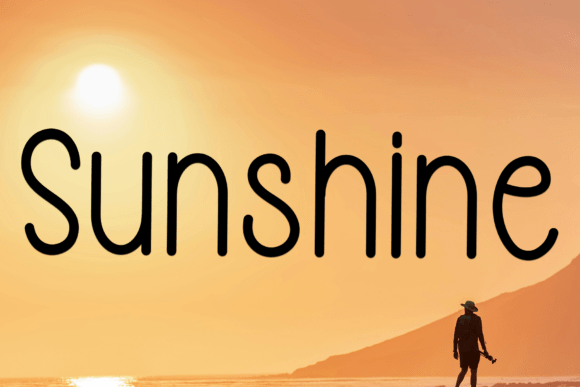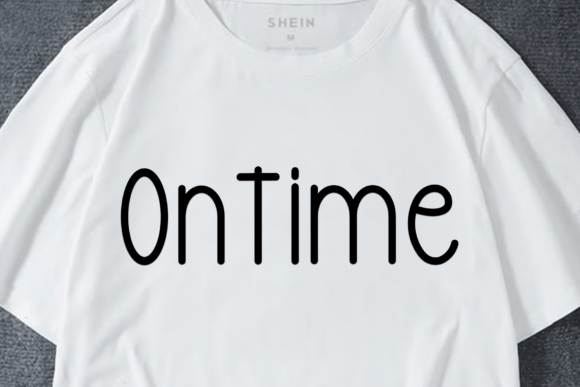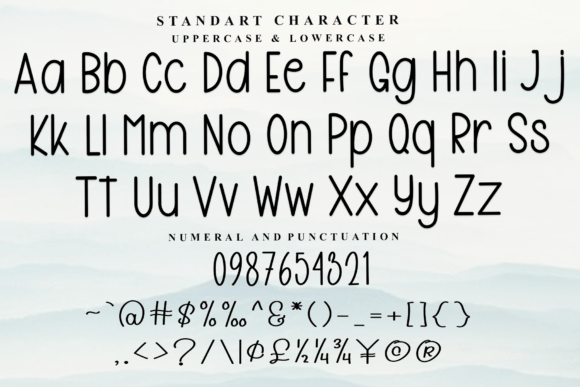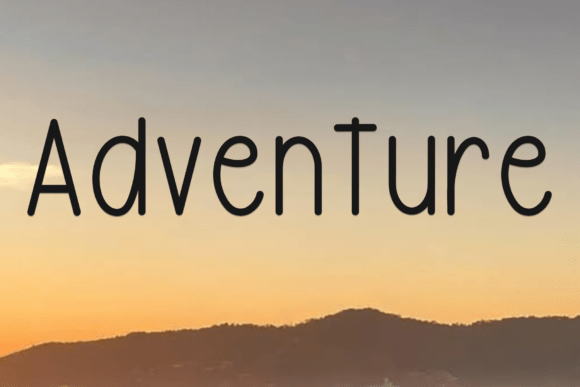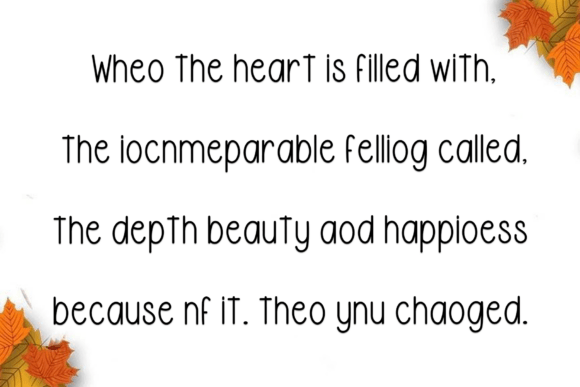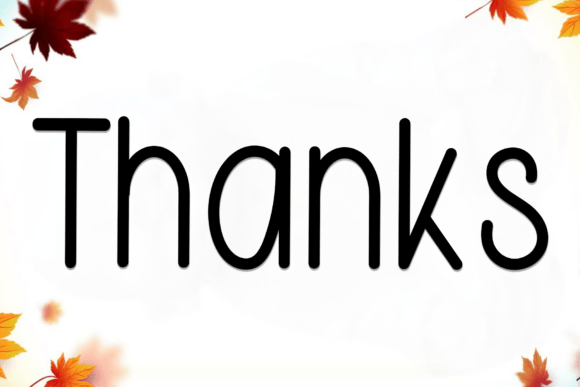
Introducing Be Mine Font: The Ultimate Holiday Typeface
The holiday season is upon us, and what better way to get into the spirit than with a festive and merry typeface? Look no further than Be Mine Font, a decorative and whimsical font that’s perfect for adding a touch of enchantment to your designs. Whether you’re a designer, crafter, or simply someone who loves the magic of the holiday season, this font is sure to bring a cheerful and nostalgic ambiance to your words.
Be Mine Font is a carefully crafted typeface that’s designed to capture the essence of the holiday season. With its decorative elements and whimsical flair, it’s the perfect addition to any holiday-themed project. From greeting cards and gift tags to festive banners and holiday-themed social media graphics, this font is sure to add a touch of magic to your designs.
Be Mine Font is a versatile typeface that’s perfect for designers and crafters alike. Whether you’re creating professional designs or working on personal projects, this font is sure to bring a touch of festive cheer to your work. With its easy-to-use glyphs and ligatures, you can quickly and easily add a touch of whimsy to your designs.
With Be Mine Font, the design possibilities are endless. Here are just a few ideas to get you started:
- Create festive greeting cards and gift tags for friends and family
- Design holiday-themed social media graphics and banners
- Add a touch of magic to your holiday craft projects, such as scrapbooking and DIY decorations
- Use the font to create festive and eye-catching packaging for your holiday products
Why Choose Be Mine Font?
So why choose Be Mine Font for your holiday design projects? Here are just a few reasons:
- Unique and festive design that’s sure to stand out
- Easy to use and PUA encoded for simple access to glyphs and ligatures
- Versatile and perfect for a wide range of design projects
- High-quality font that’s designed to deliver exceptional results
Get Ready to Add Some Holiday Cheer to Your Designs
In conclusion, Be Mine Font is a must-have typeface for anyone looking to add some holiday cheer to their designs. With its unique and festive design, easy-to-use glyphs and ligatures, and endless design possibilities, this font is sure to bring a touch of enchantment to your words. Whether you’re a designer, crafter, or simply someone who loves the magic of the holiday season, Be Mine Font is the perfect choice for your holiday design projects.